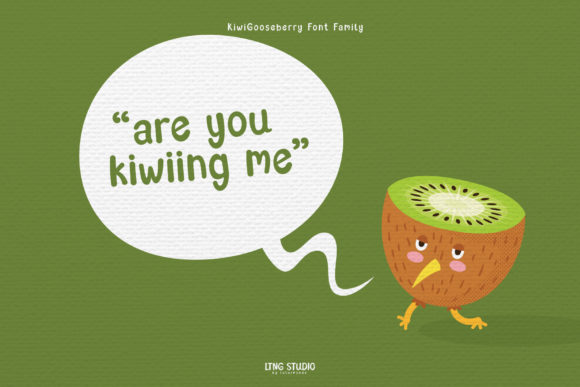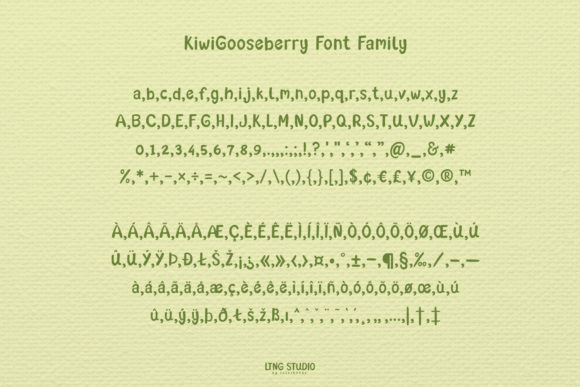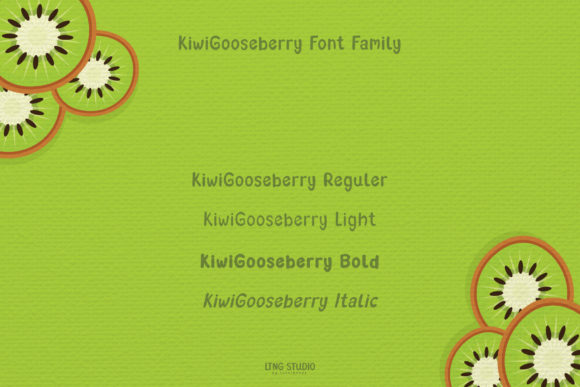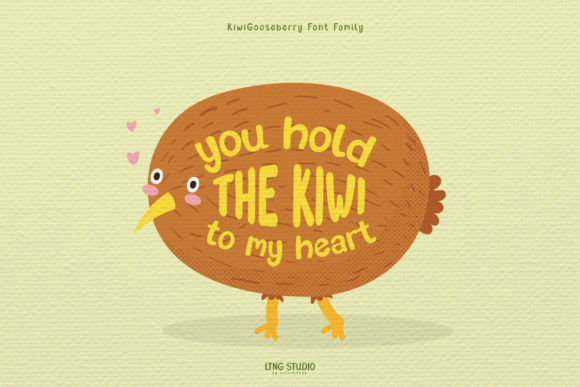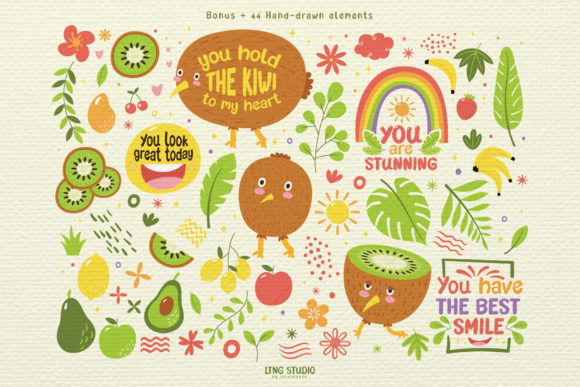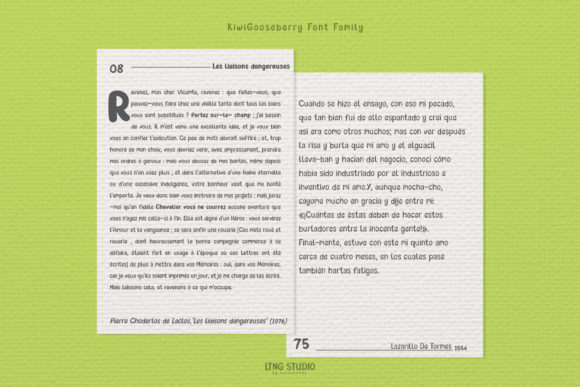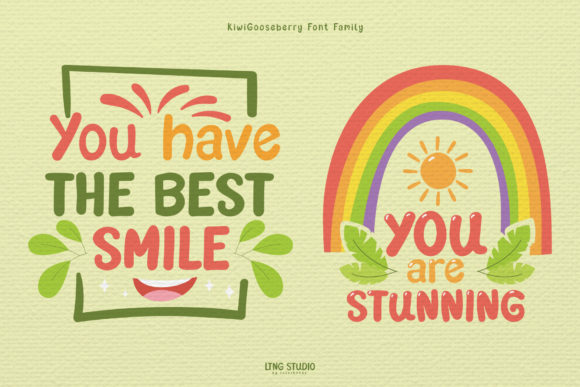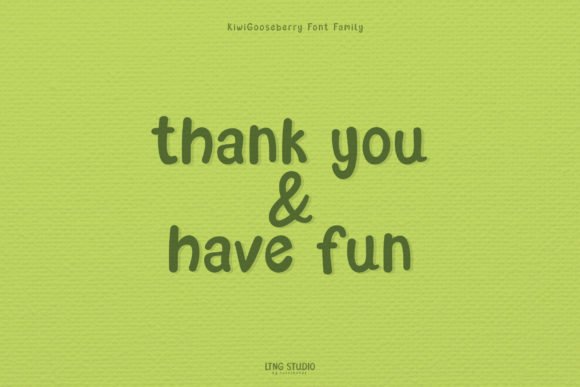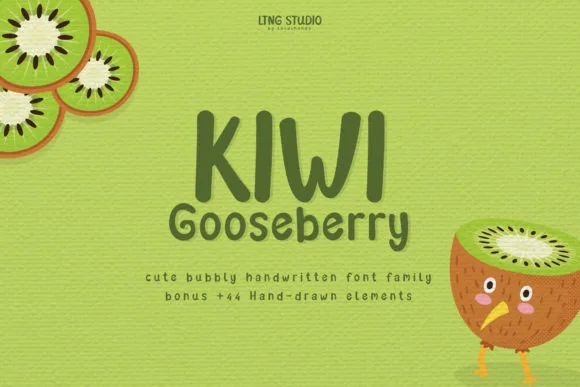
Kiwi Gooseberry Font
About Kiwi Gooseberry Font
Kiwi Gooseberry is a cute and casual handwritten font. Its informal style and casual vibe will make this font a go-to choice for each of the creations that require a relaxed touch.